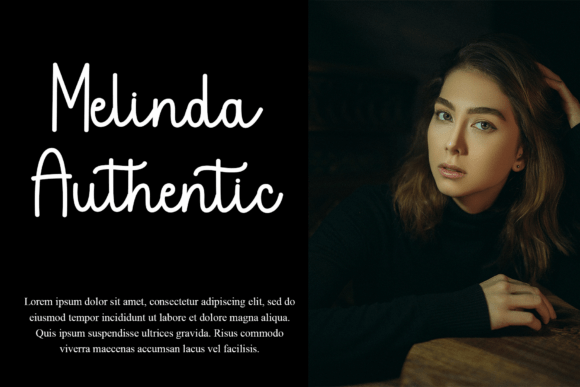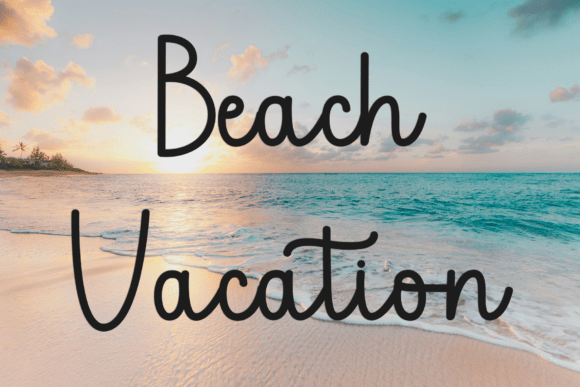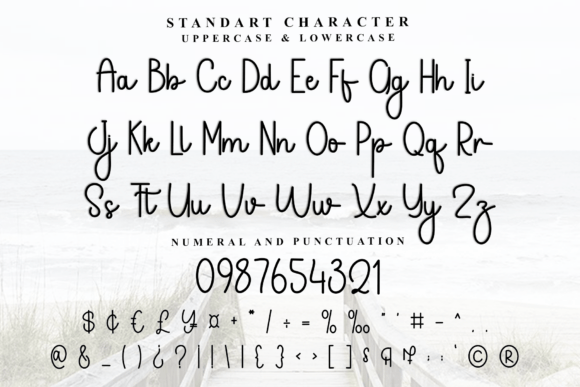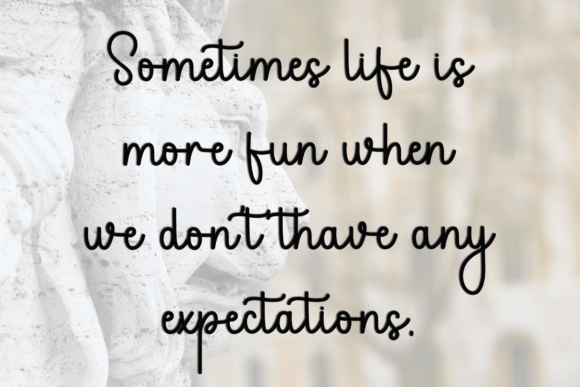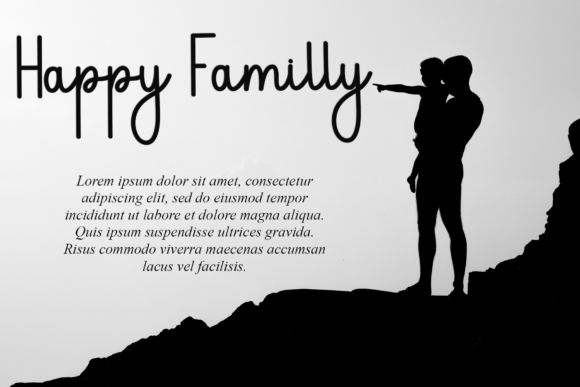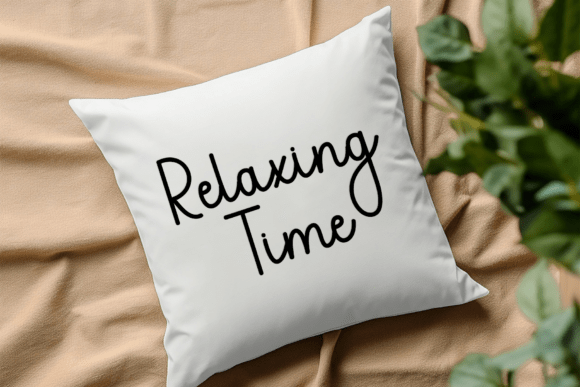
Discover the Charm of Grandma Font: Elevate Your Designs with a Unique Touch
In the world of typography, fonts play a crucial role in conveying messages, evoking emotions, and adding personality to designs. Among the numerous fonts available, Grandma Font stands out for its soft, unique touch and distinctive strokes, making it a versatile and meaningful choice for various creative projects. In this article, we’ll explore the features, benefits, and applications of Grandma Font, and why it’s becoming a favorite among designers and crafters.
The Unique Character of Grandma Font
Grandma Font is designed with a special character that sets it apart from other fonts. Its soft and unique touch gives it a warm, inviting feel, making it perfect for designs that require a personal and emotional connection. The font’s distinctive strokes add a touch of elegance and sophistication, making it suitable for a wide range of applications, from crafts and DIY projects to professional design works.
Key Features of Grandma Font
- Variety of Characters: Grandma Font offers a range of characters, ensuring that you have the flexibility to create unique and engaging designs.
- Natural Font Style: The font’s natural style makes it perfect for designs that require a personal touch, such as crafts, invitations, and social media graphics.
- Versatility: The font’s versatility makes it suitable for a wide range of products, from digital designs to print materials.
Applications of Grandma Font
Grandma Font is an excellent choice for various design projects, including:
- Crafts and DIY Projects: The font’s unique character and natural style make it perfect for craft designs, such as handmade cards, gift tags, and scrapbooking.
- Graphic Design: Grandma Font is suitable for graphic design projects, such as logos, brochures, and social media graphics.
- Web Design: The font’s clean and elegant design makes it perfect for web design projects, such as website headers, titles, and descriptions.
- Digital Art: Grandma Font can be used in digital art projects, such as illustrations, animations, and video productions.
Benefits of Using Grandma Font
Using Grandma Font in your designs offers several benefits, including:
- Enhanced Visual Appeal: The font’s unique character and natural style add a touch of elegance and sophistication to your designs.
- Emotional Connection: Grandma Font’s soft and inviting feel creates an emotional connection with your audience, making your designs more relatable and engaging.
- Versatility: The font’s versatility makes it suitable for a wide range of applications, saving you time and effort in finding the right font for your project.
Grandma Font is a beautiful and eye-catching font that offers a unique touch to your designs. Its distinctive strokes, natural style, and versatility make it perfect for various creative projects, from crafts and DIY projects to professional design works. With its compatibility with various applications and emotional connection with audiences, Grandma Font is an excellent choice for designers and crafters looking to elevate their designs and appeal to a wide range of audiences.
Get Creative with Grandma Font